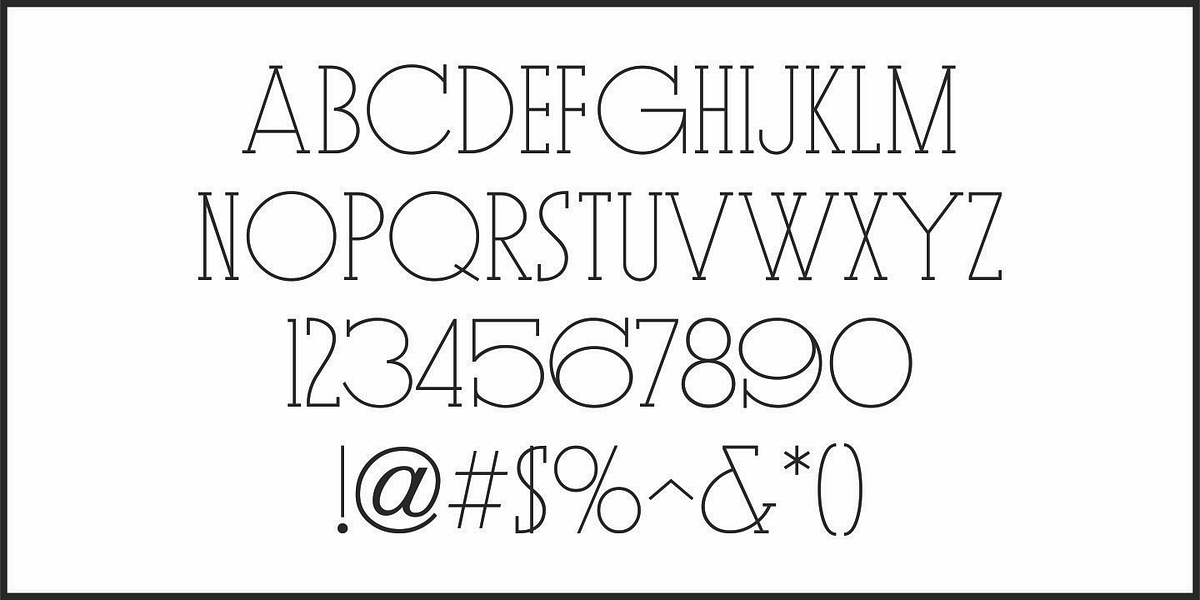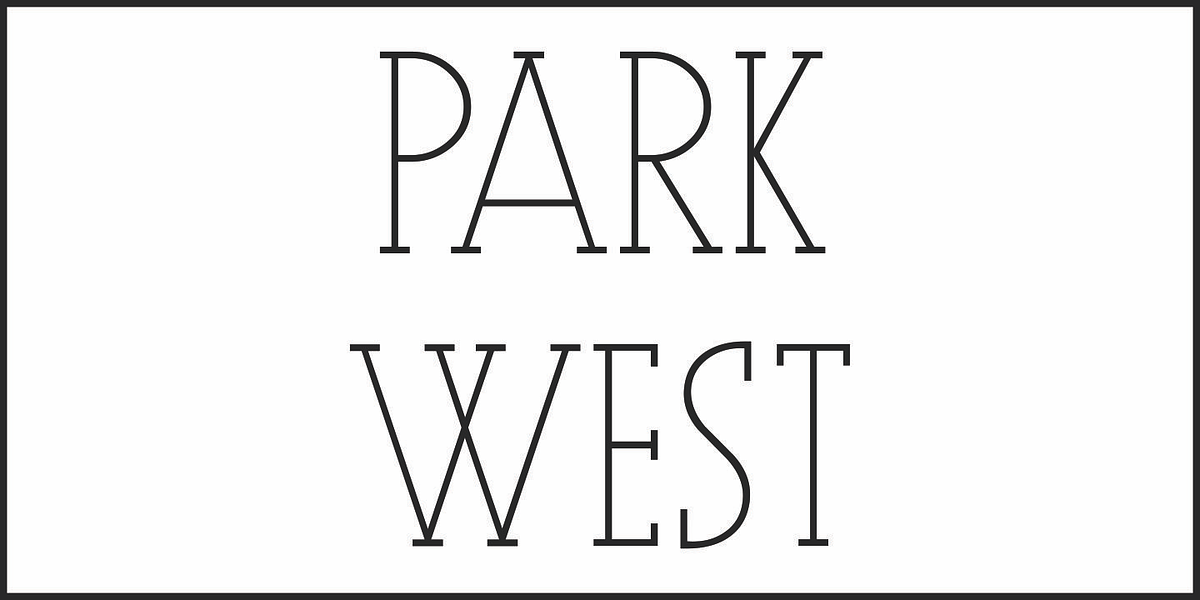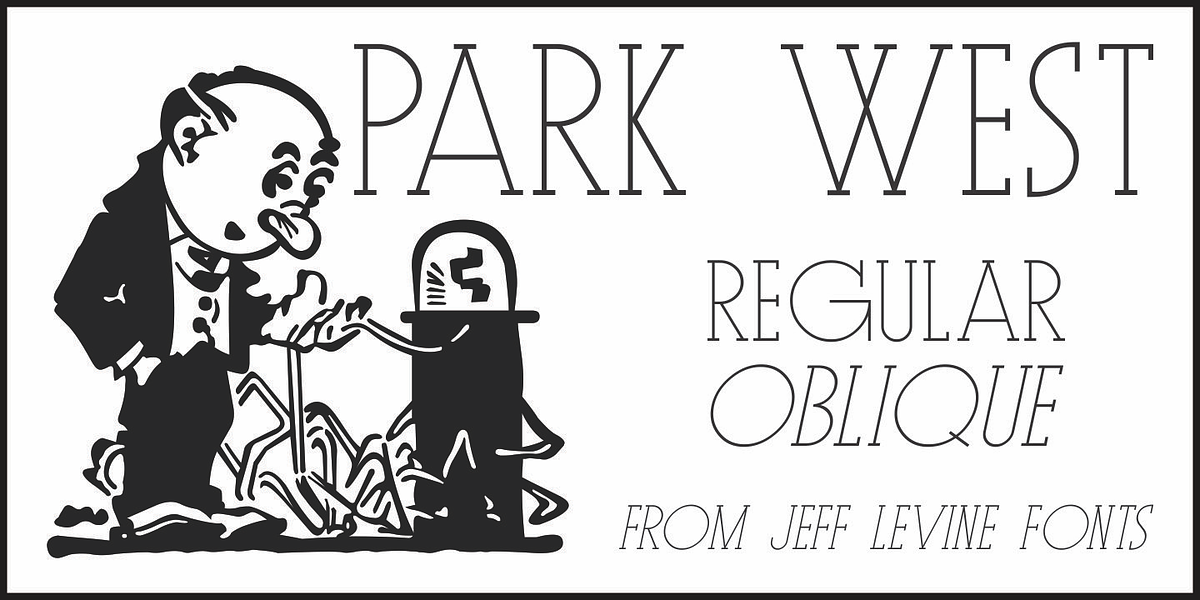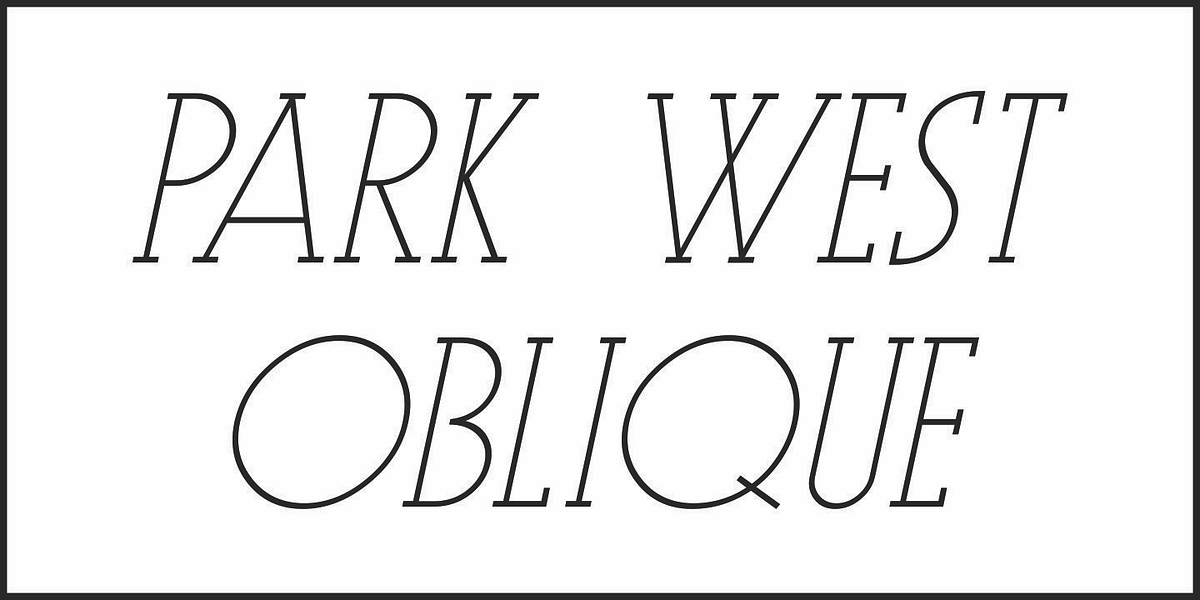
Park West JNL
The thin, stylish Art Deco slab serif lettering featured on the cover of the 1934 sheet music for “Then I’ll be Tired of You” inspired the digital type face Park West JNL, which is available in both regular and oblique versions.
Central Park West has always been the upscale area for affluent New Yorkers, but in the Great Depression years of the 1930s the mystique of the well-to-do held an even stronger significance.